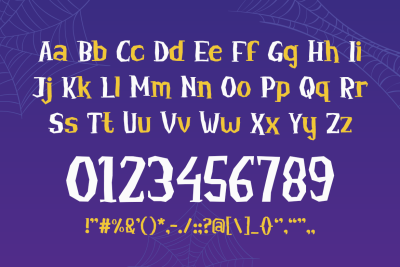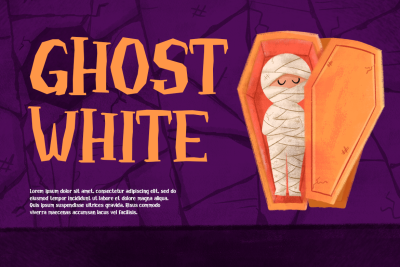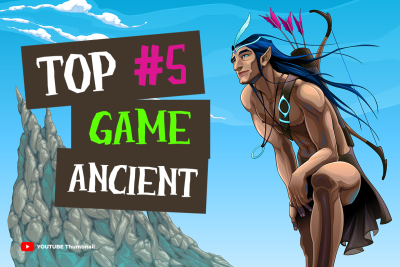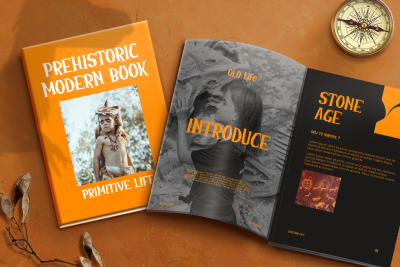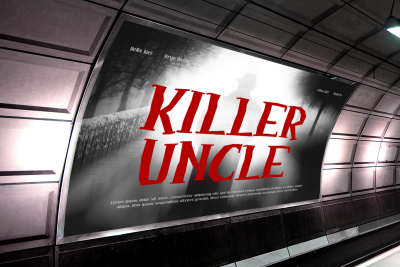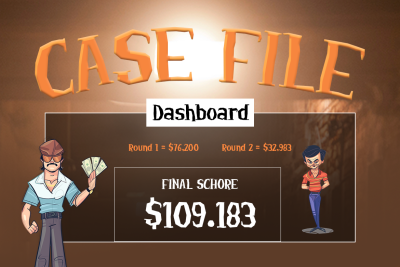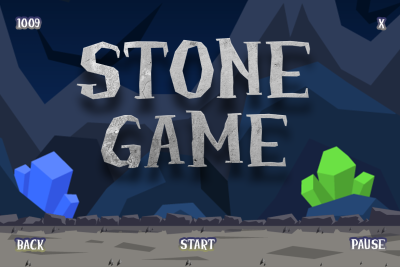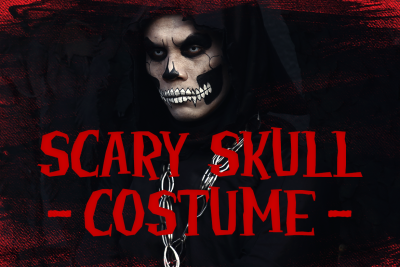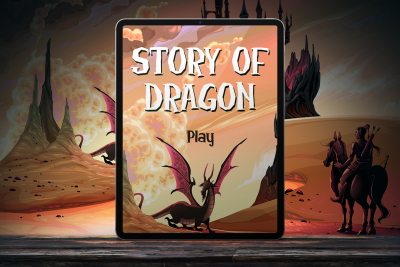
Scary Font White Fang is the perfect blend of eerie elegance and boldness, designed to elevate your spooky-themed projects. With sharp edges and uneven strokes, this font brings a chilling yet captivating vibe to any creative design. Therefore, it works wonderfully for Halloween posters, haunted house invitations, or even eerie-themed merchandise. This typeface ensures your designs grab attention and set the perfect tone for fright-filled projects.
Moreover, White Fang stands out with its balance of readability and character, making it versatile for both headlines and body text. As a result, whether you’re designing for digital or print materials, this font ensures a hauntingly beautiful presentation that leaves a lasting impression on your audience.
Scary Font White Fang Perfect for Halloween and Horror Themes
This scary font is not just about looksโitโs about creating an unforgettable mood. Its jagged lines and dramatic curves evoke the essence of fear and suspense, making it the go-to choice for horror-themed branding or event promotions. For instance, whether youโre crafting movie titles, book covers, or custom apparel, Scary Font White Fang adapts seamlessly to various uses.
Furthermore, the versatility of this typeface makes it ideal for designers seeking a spooky yet modern aesthetic. Transitioning effortlessly between different project types, it complements vibrant colors and dark tones alike. Consequently, it ensures your designs stand out in any context. Additionally, its unique design captures the essence of classic horror while adding a contemporary twist, making it suitable for any creative theme.
Enhance Your Designs with Timeless Spookiness
White Fang goes beyond being just a fontโitโs a statement piece for any creative endeavor. Its carefully crafted details bring a sense of authenticity and drama to your work. Whether you’re a graphic designer, event planner, or DIY enthusiast, this font will elevate your projects to the next level.
By choosing Scary Font White Fang, you can transform ordinary designs into extraordinary creations. Not only does it add an eerie charm, but it also provides a bold and professional touch. Therefore, donโt miss out on this versatile typeface that combines quality, character, and creativity in one package.